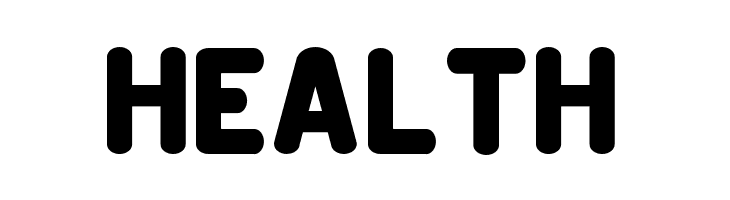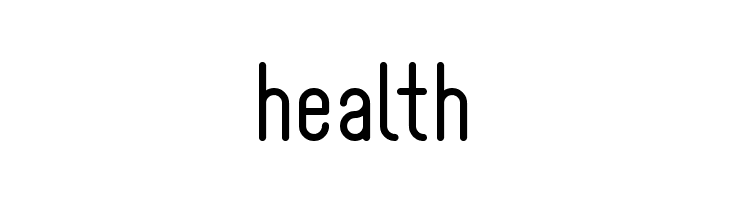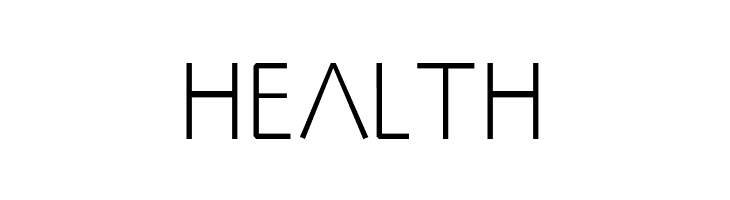
A bold, playful font with star motifs and rounded characters.
A bold, rounded font with a playful and friendly style.
A bold, rounded font with a modern and friendly style.
A modern sans-serif font with rounded edges and excellent readability.
A playful, rounded font with smooth curves and consistent stroke width.
A modern, geometric font with clean lines and an open feel.
A modern, geometric sans-serif font with consistent stroke width and balanced proportions.
A playful, rounded font with bold, uniform strokes and a friendly appearance.
A bold, geometric font with high contrast and artistic design elements.
A modern, geometric sans-serif font with a clean and balanced design.